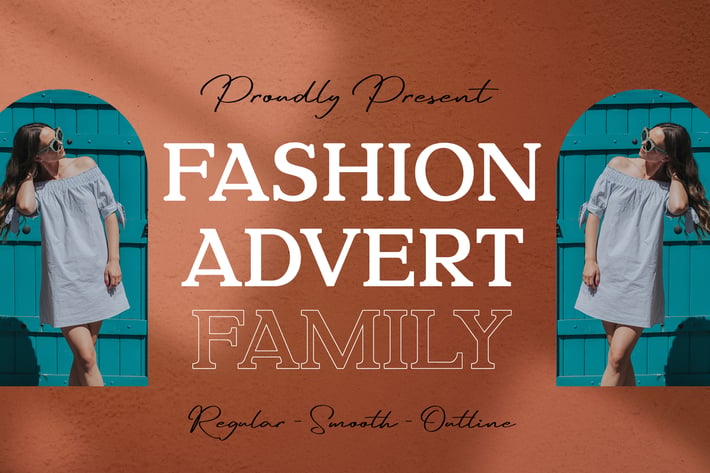
Fashion Advert Business Font Family
Fashion Advert is elegant and modern serif font. It can easily be matched to an incredibly large set of projects, so add it to your creative ideas and notice how it makes them stand out!